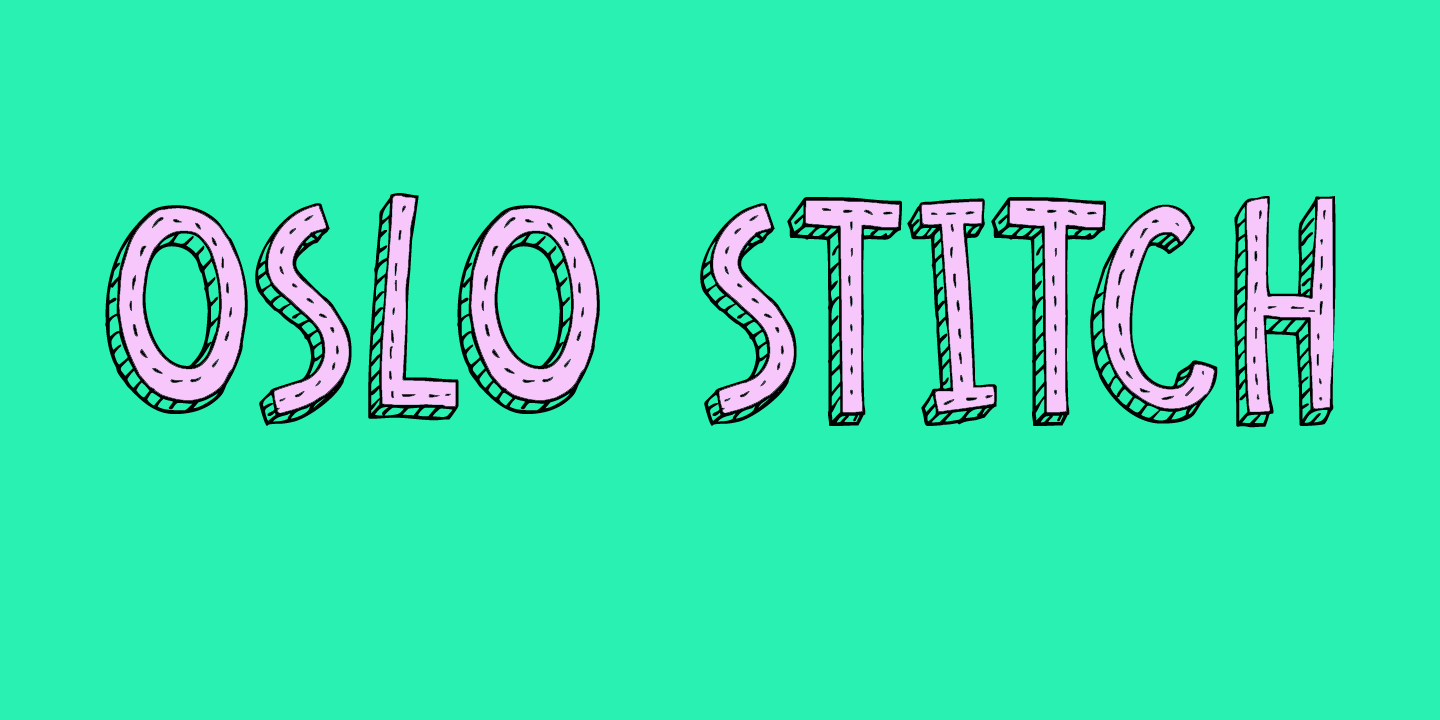
Oslo Stitch Font is perfect for Scandinavian textile companies, Nordic handicraft workshop branding, traditional embroidery service communications, artisan knitting boutique signage, Norwegian cultural center materials, handcraft fair promotions, sustainable fashion brand marketing, and cozy fiber arts studio campaigns. This authentic typeface excels in applications where Nordic craftsmanship, handmade authenticity, and traditional textile artistry are essential for connecting with audiences who appreciate the meticulous beauty of Scandinavian needlework and the sustainable values of traditional fiber arts.
What makes Oslo Stitch Font so exciting is its masterful embodiment of Nordic textile tradition and handcraft authenticity that perfectly captures the essence of Norwegian stitching heritage and the patient artistry of Scandinavian fiber work. The font features carefully constructed, thread-like letterforms with textile characteristics that evoke embroidery patterns and traditional Nordic needlework. Its artisanal character conveys craftsmanship, tradition, and sustainable creation - essential qualities for brands serving craft communities, sustainable fashion markets, and audiences who appreciate handmade quality, Nordic design principles, and the meditative beauty of traditional textile arts and fiber craftsmanship.
The Oslo Stitch Font family includes multiple crafted weights and textile-inspired variations that enhance its handmade appeal. Some versions feature subtle stitch textures and thread-like elements that simulate authentic embroidery techniques, while others provide cleaner variants that maintain the font's artisanal character with improved readability for professional craft applications and commercial Nordic textile communications.
Whether you're creating branding for craft businesses, designing materials for textile services, or developing marketing campaigns for handmade experiences, Oslo Stitch Font Free Download provides the authentic craftsmanship your project requires. The font's Nordic character makes it particularly effective for brands targeting craft enthusiasts and audiences who appreciate Scandinavian design, sustainable textiles, and the patient beauty of traditional Nordic needlework and fiber arts.
Craft with Nordic tradition using Oslo Stitch Font and weave authentic artistry into your brand communications with typography that celebrates the patient beauty of Scandinavian textile craftsmanship.